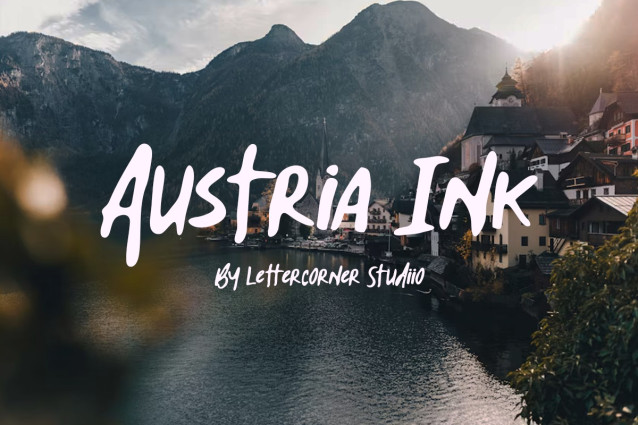
Austria Ink Font
Austria Ink Font is a simple and friendly handwritten font. Its natural and unique style makes it incredibly fitting to a large pool of designs. The only limit is your imagination!